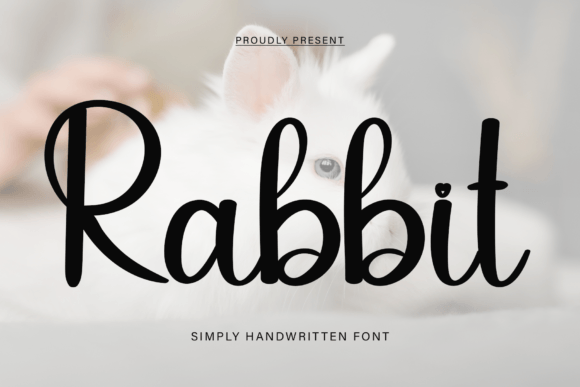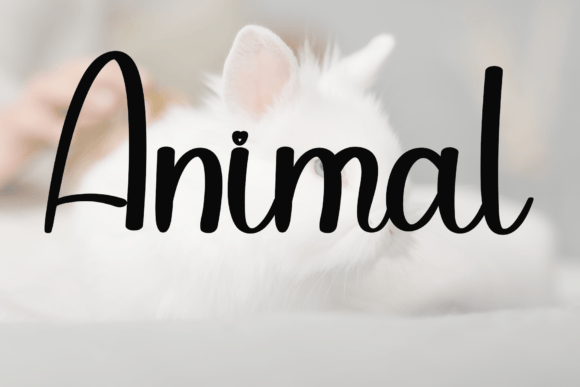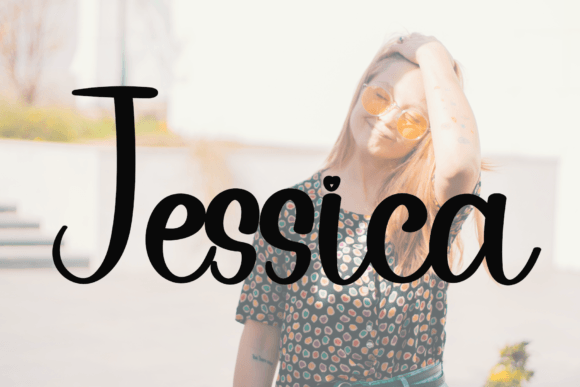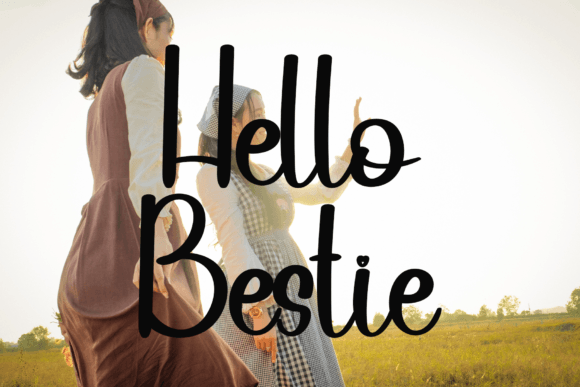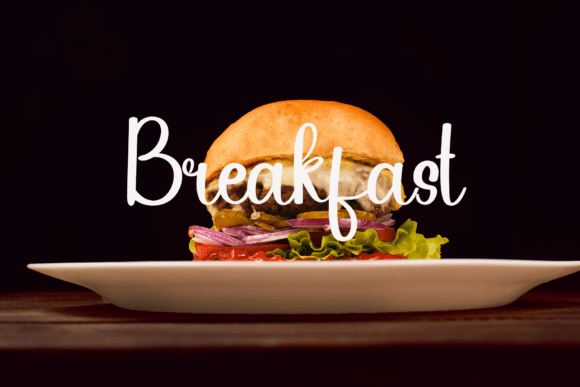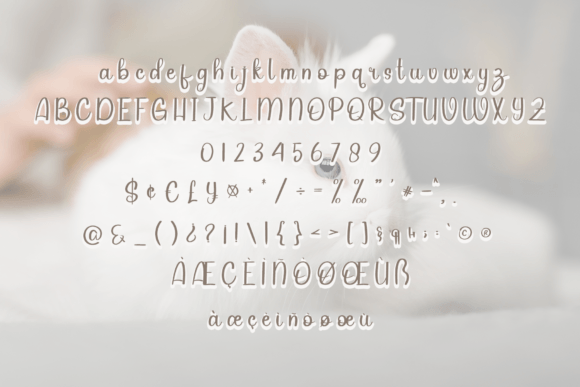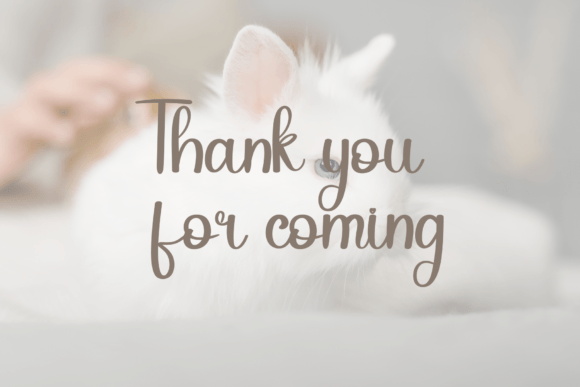
Rabbit Font
About Rabbit Font
“Rabbit” is a straightforward handwritten font that offers simplicity and versatility in its design. This font can be applied across a wide spectrum of creative applications, from greeting cards to headlines, and it’s sure to infuse your next project with a sense of simplicity and naturalness.
The key feature of “Rabbit” lies in its unadorned and straightforward style. The font’s design is clean and clear, making it a versatile choice for a variety of design needs. Its simplicity allows it to adapt easily to different creative contexts while maintaining a natural and approachable feel.
With “Rabbit,” you have a font that can be used effectively in various design projects. It is suitable for creating greeting cards, where its simplicity can convey warm and genuine sentiments. Additionally, it works well for headlines, bringing a straightforward and attention-grabbing quality to your titles and headings.
The versatility of “Rabbit” ensures that it can be employed in both digital and print media. Whether you’re working on digital graphics or print materials, this font’s natural and straightforward appearance maintains a consistent visual appeal, making it a dependable choice for designers seeking simplicity and clarity.
In summary, “Rabbit” is a simple handwritten font that excels in providing a straightforward and natural feel to your projects. Its versatility allows it to be applied to a wide range of creative endeavors, from greeting cards to headlines, ensuring that your designs maintain an unpretentious and approachable quality. Embrace the simplicity and versatility of “Rabbit” in your next project, and discover how it can effortlessly enhance the overall aesthetic of your creations.